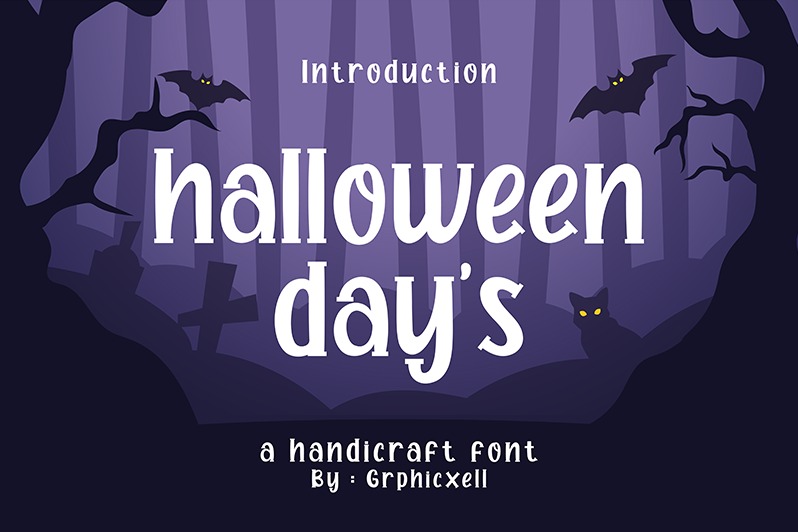
Haloween Day's Font is a stylish and eye-catching display typeface, perfect for adding a bold and festive flair to your creative projects. Designed with a spooky and handcrafted charm, it’s ideal for Halloween-themed designs, but its playful curves and distinctive character make it versatile enough for use in a wide variety of design applications.
From handcrafted products and product packaging to quotes, logos, labels, and branding, Haloween Day's brings a unique personality that stands out. It’s especially well-suited for seasonal marketing, party invitations, social media graphics, and creative DIY projects that need a fun and atmospheric touch.